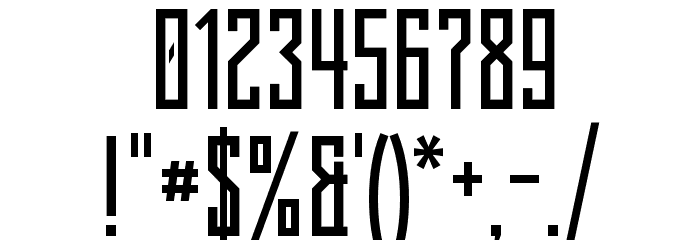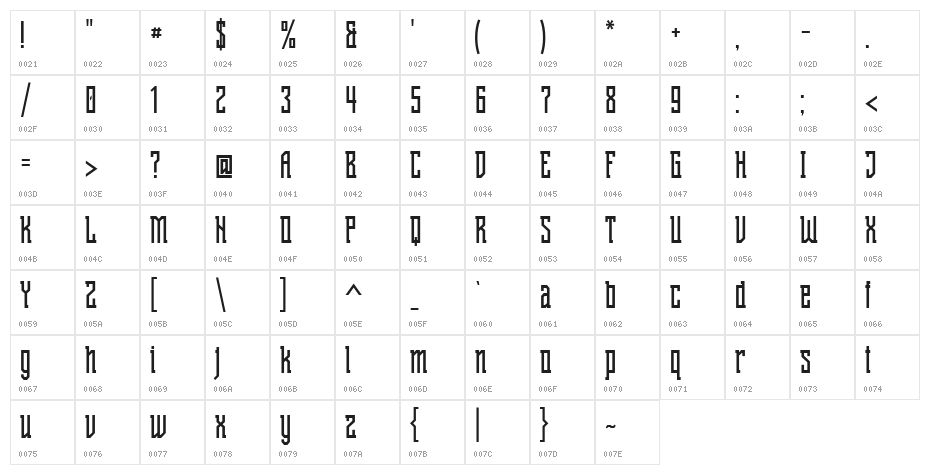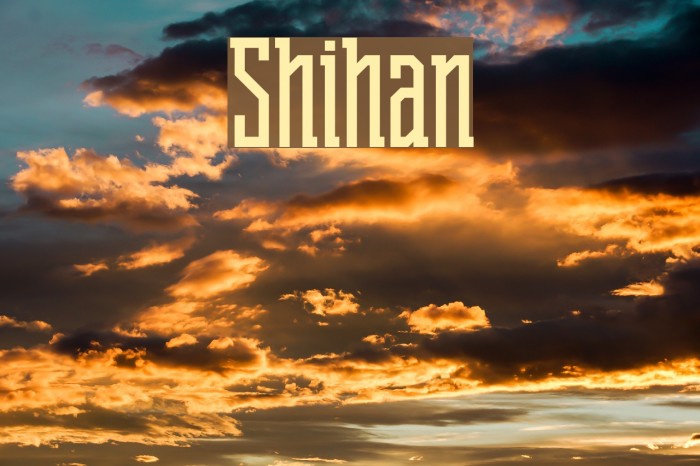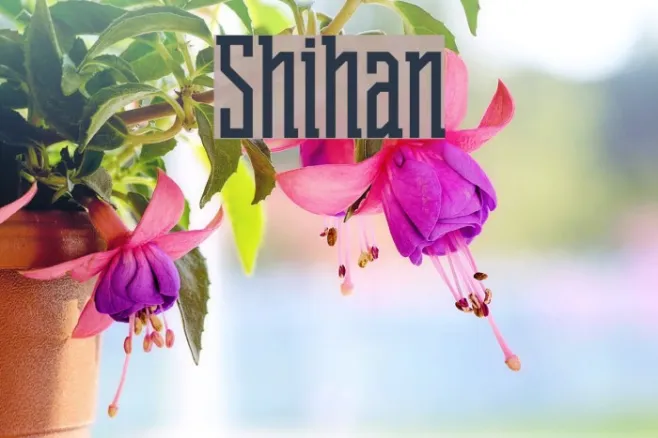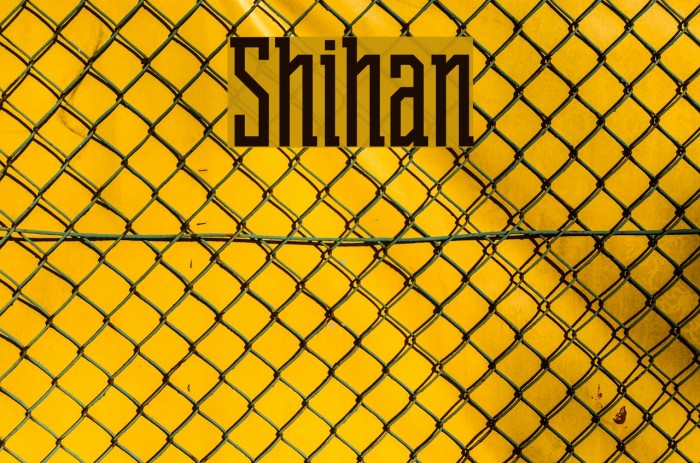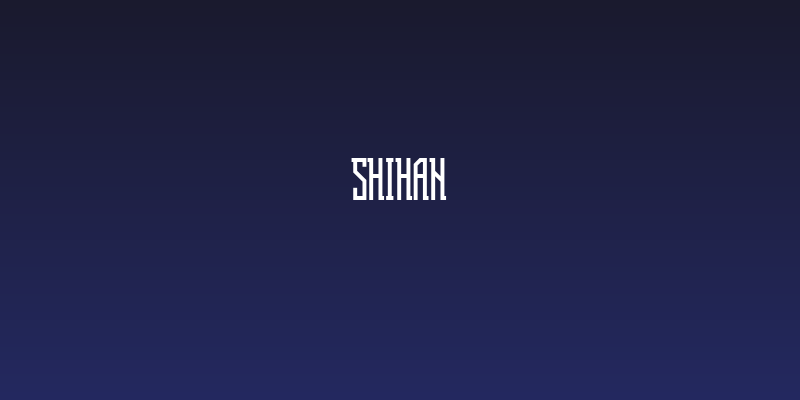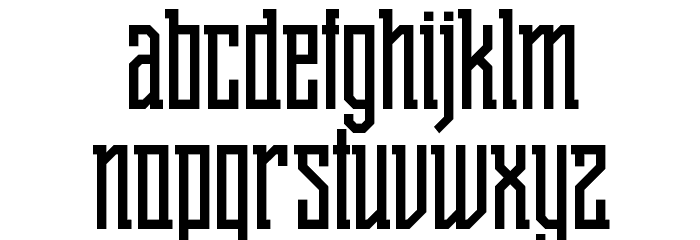
Shihan Font
Shihan Description
This font features a bold and geometric design with a strong, angular structure. The uppercase letters are tall and narrow, giving a condensed appearance, while the lowercase letters maintain a similar style with slightly more curves. The numbers and special characters are consistent with the overall geometric theme, providing a cohesive look. The font's distinct style makes it suitable for attention-grabbing designs, with its high stroke contrast and sharp edges. Its modern and decorative appearance is ideal for projects that require a unique and striking visual impact.